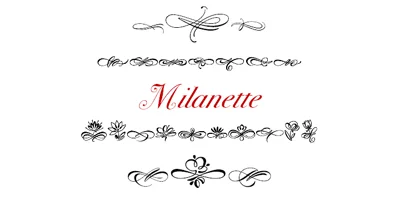
Milanette Font
Milanette Font is perfect for fashion and luxury applications including high-end fashion magazines, luxury brand packaging, elegant boutique signage, sophisticated cosmetics branding, premium jewelry catalogs, upscale restaurant menus, fashion show materials, and luxury lifestyle publications. This refined typeface brings European sophistication and timeless elegance to projects requiring premium aesthetic and fashionable appeal.
What makes Milanette Font exciting is its perfect embodiment of Italian fashion heritage and contemporary luxury design. The font features gracefully proportioned letterforms with sophisticated curves and refined details that evoke the elegance of Milan's fashion districts. Its stylish character design combines classic European typography traditions with modern fashion sensibilities, creating an unmistakably luxurious presence that commands attention and respect.
The Milanette Font family encompasses multiple weights and stylistic variations that preserve the fashion-forward character while offering design versatility. From delicate light weights for subtle luxury applications to bold statement variants for high-impact fashion headers, each style maintains the signature sophisticated aesthetic. The family includes decorative alternates and fashion-inspired ligatures that enhance creative possibilities for luxury branding.
Fashion designers and luxury brands consistently choose Milanette Font for projects requiring authentic fashion typography and European elegance. Whether developing haute couture campaigns, creating luxury product packaging, or designing high-end retail experiences, this font delivers exceptional sophistication and fashion credibility. Its unique combination of Italian fashion heritage and contemporary luxury appeal makes it an essential resource for professionals working in fashion, beauty, and luxury markets who demand typography that reflects refined taste and international style.